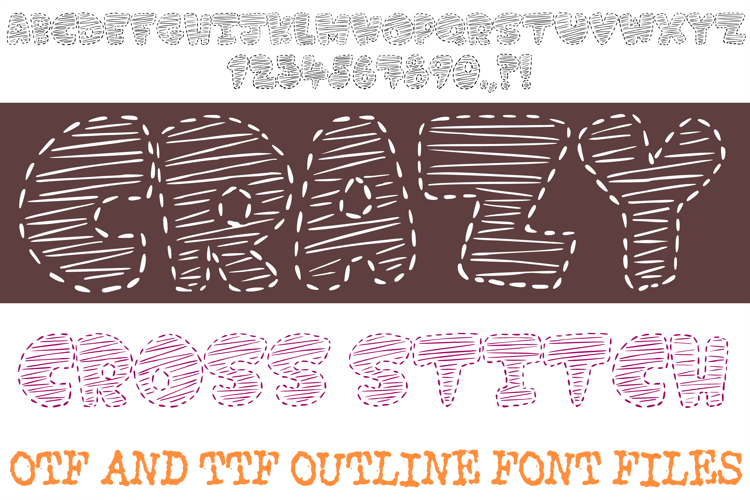
Crazy Cross Stitch Alphabet Lettering Font Embroidery ABC
Bring cozy, hand-crafted warmth to your creative projects with the wonderfully textured Crazy Cross Stitch Font. This delightfully tactile display typeface features chunky, blocky letterforms styled to look like custom fabric applique patches. The outer edge of each character is bordered by a whimsical dashed line mimicking a classic hand-sewn running stitch, while the interior is filled with a sketchy, cross-hatched scribble that beautifully replicates the look of dense embroidery thread. It stands as an exceptional choice for headlines, titles, and craft designs that need a homespun, cozy, and artistic aesthetic.
Delivered as an installable typeface, this detailed line art structure provides incredible creative versatility. It serves as an excellent resource for a designer who wants to overlay colorful textile patterns, apply vibrant gradient fills to the thread texture, or contrast the bold stitched borders against solid backdrops. The clean, stylized linework scales flawlessly across all major design platforms, ensuring sharp, professional results for digital creations and physical print templates alike.
Ideal For Creative Merch & DIY
Custom Merchandise: Design charming typography layouts for cozy autumn apparel, canvas crafting tote bags, and custom screen-printed hoodies.
Die-Cut Stickers: Create adorable, textured-look vinyl decals for sewing machine covers, water bottles, laptop lids, and hobby journals.
Theme Stationery: Perfect for craft fair flyers, quilting guild newsletters, rustic holiday greeting cards, or sewing-themed party invitations.
Artisan Branding: Elevate logos, business cards, and social media packaging for independent fabric shops, embroidery boutiques, custom tailor studios, or handmade toy creators.